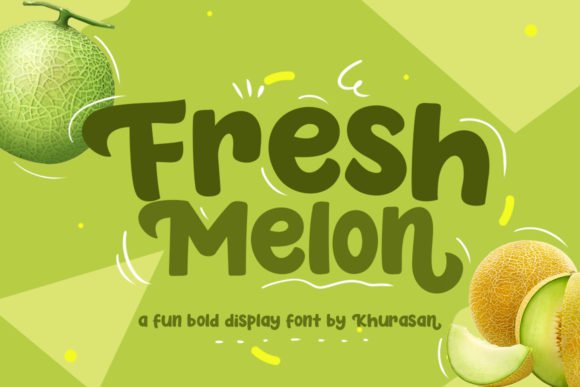
Unleash the Vibrancy: Introducing Fresh Melon Font
Do you remember that moment when you finally nailed the design for your summer campaign, and the entire room lit up with excitement? The colors popped, the typography was on point, and the message resonated with your audience. For designers like you, this feeling is what drives us to create something truly special.
That’s where Fresh Melon Font comes in – a fun and bold display font that’s perfect for making a statement. Designed to add a touch of playfulness and energy to your projects, Fresh Melon Font is versatile enough to suit a wide range of applications, from social media graphics to event branding.
As a designer, you understand the value of having the right tools at your disposal. With Fresh Melon Font, you’ll be able to infuse your designs with a fresh and modern look that’s sure to capture attention and leave a lasting impression.
Fresh Melon Font Key Features
- Font Family: Fresh Melon Font is a sans-serif font family designed for modern and playful use.
- Character Count: The font family includes over 1,000 glyphs, covering a wide range of languages and characters.
- Unique Characteristics: Features a distinctive rounded shape, friendly and approachable feel, and a modern twist on traditional sans-serif fonts.
Review of Fresh Melon Font
I recently had the chance to work with the Fresh Melon Font, and overall, I’m impressed. Here’s my honest review:
The Fresh Melon Font is perfect for those looking for a fun and playful font. It’s great for titles, headings, and even body text in informal settings like blogs, social media, or advertising.
- Its modern and sleek design makes it versatile for various projects.
- The font is highly legible, making it easy to read even in smaller sizes.
- It’s available in a range of weights, from light to bold, giving designers the flexibility to customize their projects.
While the Fresh Melon Font is great for informal settings, it may not be the best choice for formal projects or those requiring a more professional tone. Additionally, it can be a bit too playful for some designs, so be sure to use it thoughtfully.
- The font may not be suitable for projects requiring a more traditional or classic look.
- It can be overwhelming in large quantities, so use it sparingly.
The Fresh Melon Font is a great addition to any designer’s toolkit. Its unique design and versatility make it perfect for a range of projects. Just be mindful of its limitations and use it thoughtfully to get the most out of it.
Tips for Getting the Most Out of Fresh Melon Font
For the best results, use Fresh Melon Font for headings and titles, and pair it with a clean sans-serif font for body text. Experiment with different font sizes and colors to create visual interest.
Fresh Melon Font is perfect for:
– Food and beverage branding
– Summer-themed designs
– Whimsical and playful designs
– Handwritten-style text
Alternatives to Fresh Melon Font
Pacifico is a beautiful script font that is perfect for creating a relaxed and casual atmosphere. It is ideal for use in food and beverage branding, as well as in designs that require a touch of elegance. Pacifico has a similar cursive feel to Fresh Melon Font, but with a more refined and sophisticated look.
Comparison: While Fresh Melon Font is more playful and fun, Pacifico is more elegant and sophisticated. Pacifico is also more versatile and can be used in a wider range of designs.
Great Vibes is a modern script font that is perfect for creating a fun and energetic atmosphere. It is ideal for use in designs that require a touch of whimsy and playfulness. Great Vibes has a similar playful feel to Fresh Melon Font, but with a more modern and edgy look.